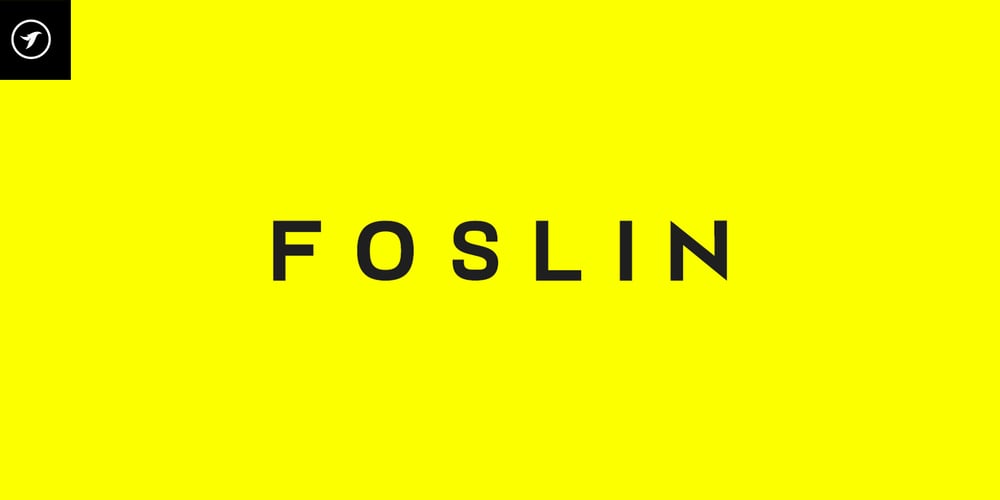
Foslin Font Family was designed by Jean Johnson and published by Designova. Foslin contains 6 styles and family package options. FOSLIN – A minimal sans-serif typeface with the potential of being a perfect display/branding/logo font. Just one look and you will notice the unique flair of this typeface which will make it perfect for logotypes, headlines, branding materials, corporate identities, and web & print purposes without any limits. Adding extra letter spacing will make this font perfect for minimal headlines and logotypes as shown in demo graphics.